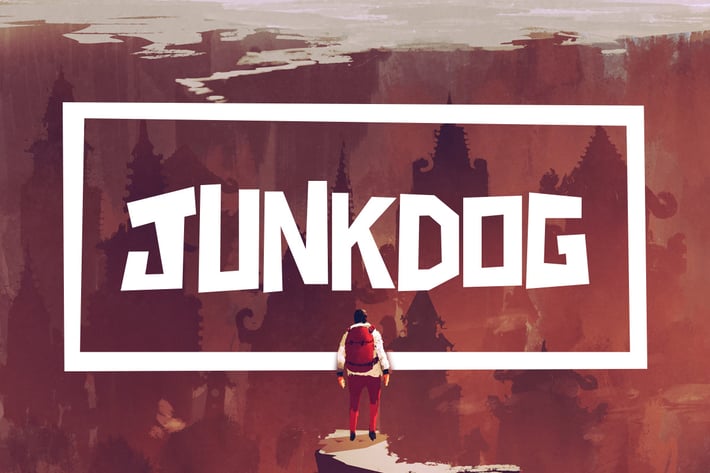
Junkdog Typeface
MehmetRehaTugcu
Junkdog is a blocky font with an attitude! It's great for big titles and quotes, quite a few of the letters have alternate versions.